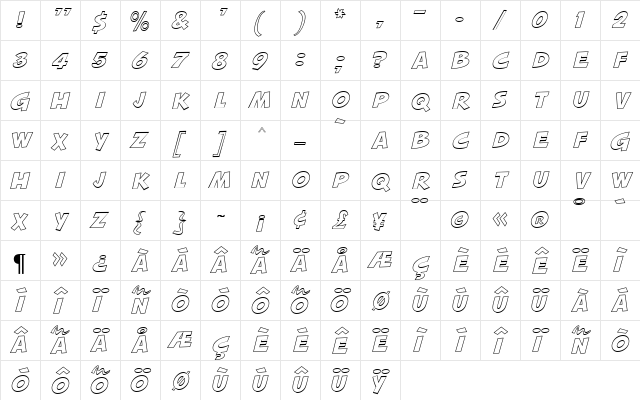
Squash MN Outline Regular Font Preview
Squash MN Outline Regular
Squash MN Outline Regular Font Details
Design Context for Squash MN Outline Typeface
Squash MN Outline brings ornamental detail and strong personality to headlines and identities, where visual impact matters more than quiet functionality.
Font Pairing: Pair with a clean neutral sans-serif for body copy to let Squash MN Outline's character lead without overwhelming the composition.
Pro Tip: Treat Squash MN Outline as the centrepiece of your typographic hierarchy. One strong heading set in a decorative face can carry an entire layout.